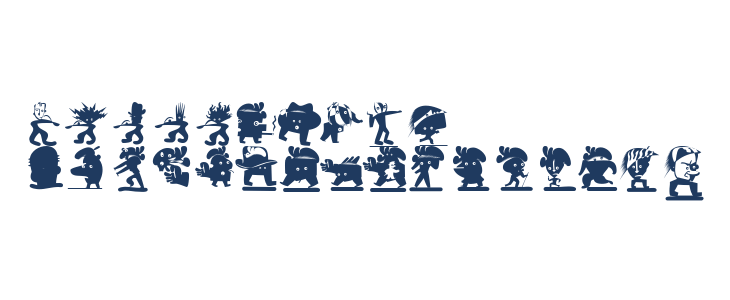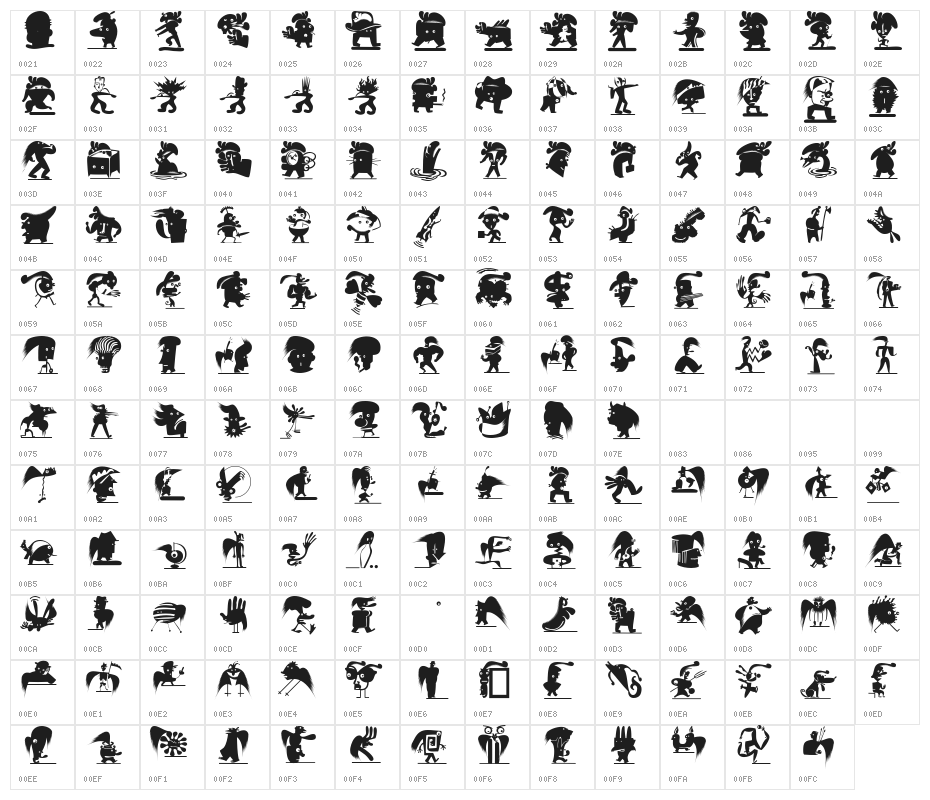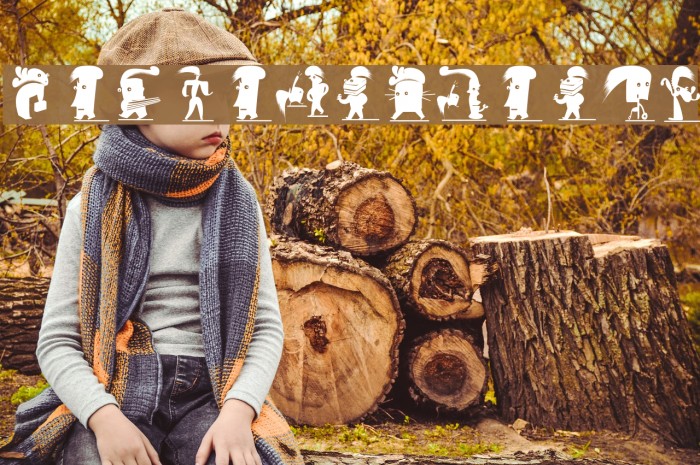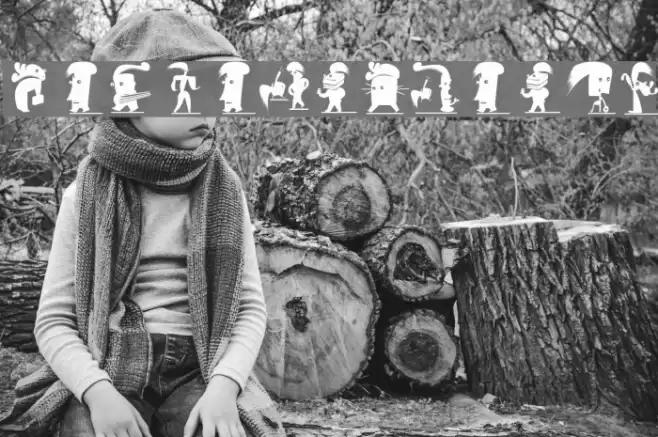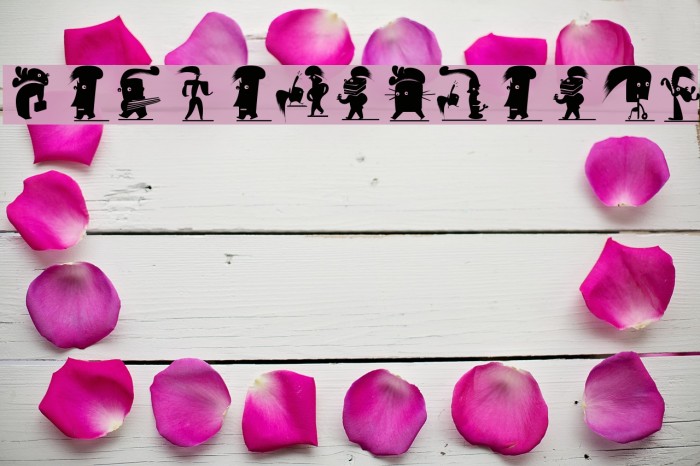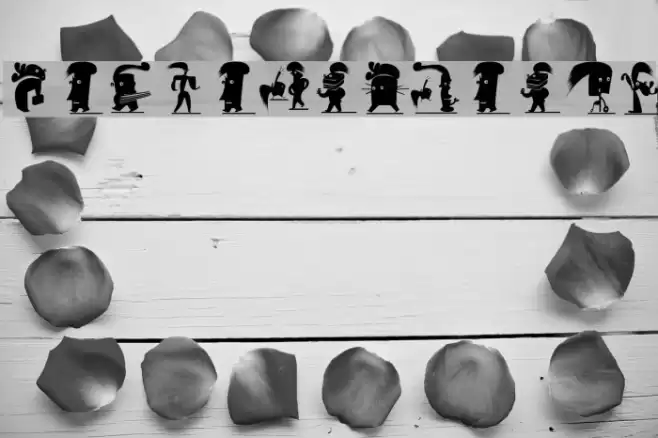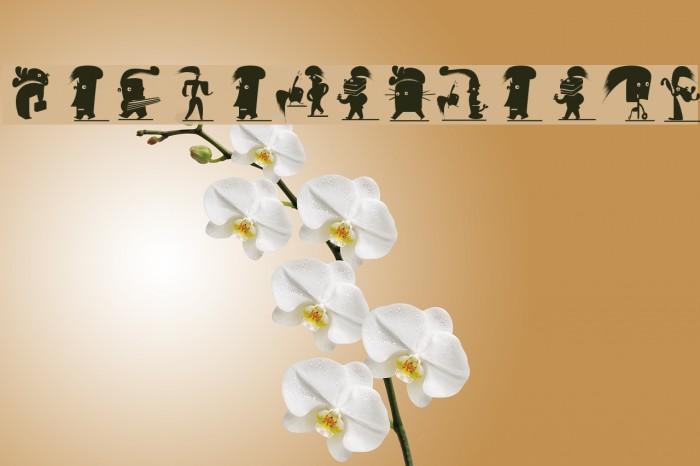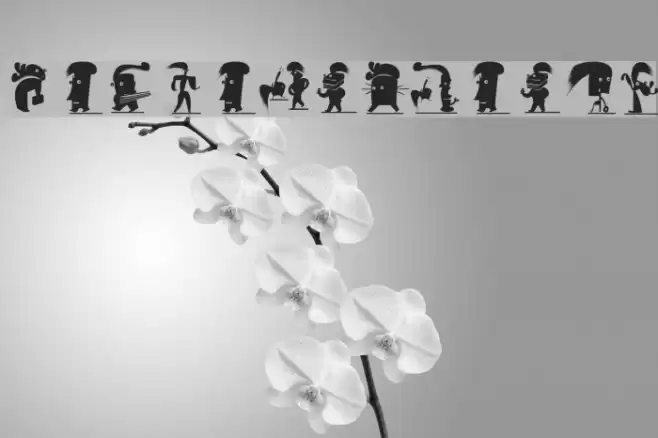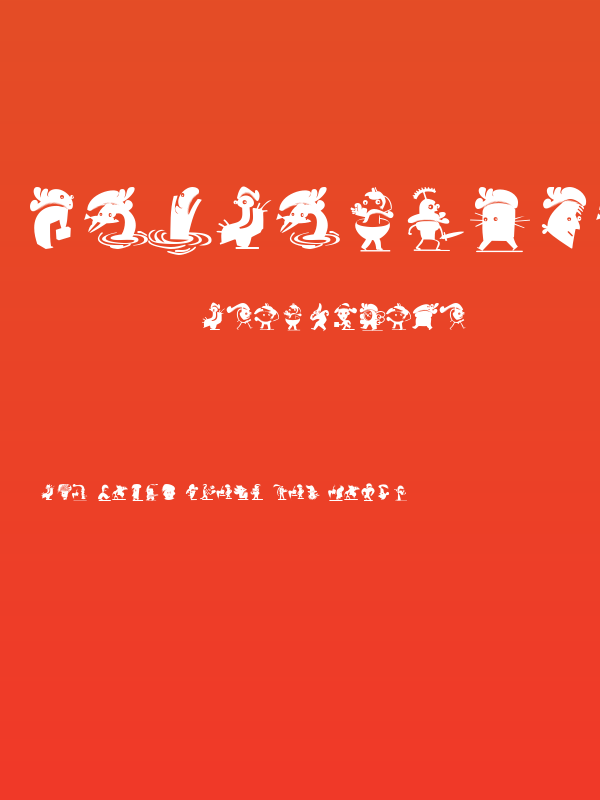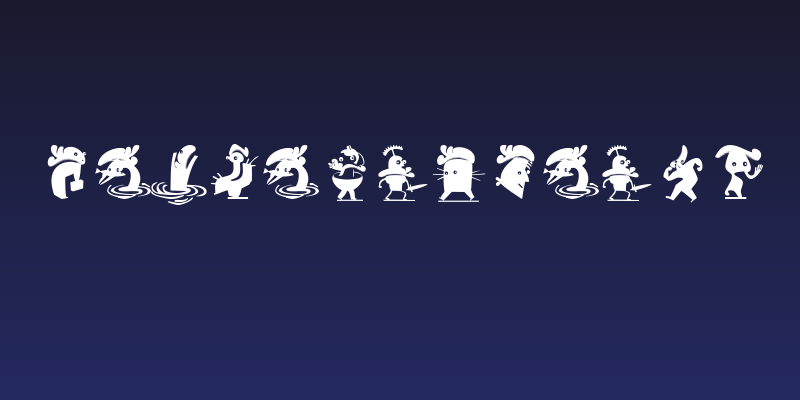
FictionBeings Font
FictionBeings Description
A playful and highly decorative typeface where each character is represented by a unique, whimsical creature or being, blending letterforms with imaginative silhouettes. The glyphs are bold, irregular, and full of personality, making each letter a distinct illustration.
| Overall Style | Decorative, Whimsical, Playful |
| Use Case | Logos, Headlines, Posters, ChildrenΓ’β¬β’s materials |
| Proposed Projects | ChildrenΓ’β¬β’s books, posters, creative branding, games, party invitations, and any project needing a fun, eye-catching display. |